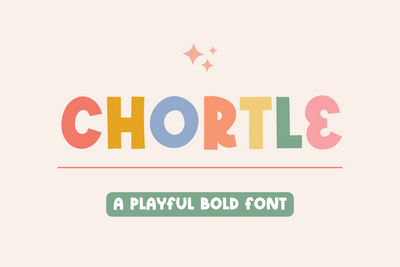
Chortle
Use Chortle to create cute logos, branding, notebooks, journals, labels, stickers, blogs, quotes, greeting cards, tea towels, apparel, pillows, mugs, toys, posters, baby clothing, picture books and so much more... basically anything that requires a fun and happiness look! 😍